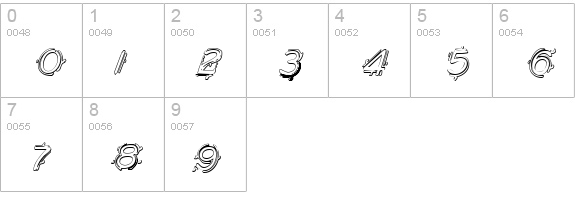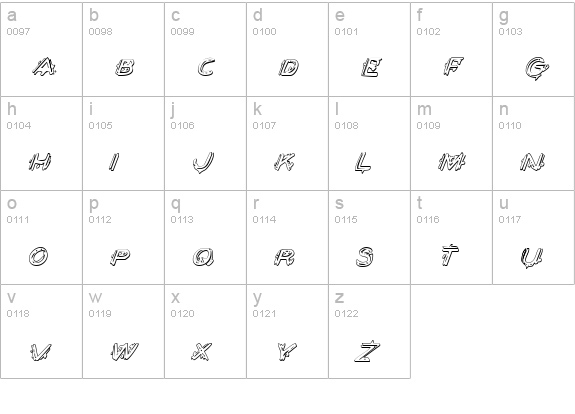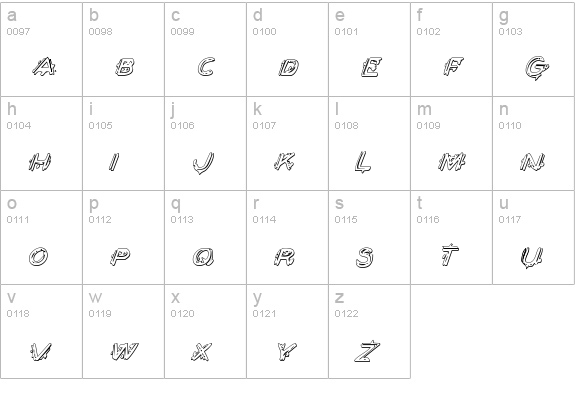
Berserker Shadow Italic is a distinctive, italic variant in the Berserker typeface family \xE2\x80\x94 well suited to design and typography projects.
Berserker Shadow Italic font is a bold and dynamic typeface that exudes power and intensity. With its sharp angles and distinctive shadow effect, this font is perfect for making a strong statement in your design projects. The italicized style adds a touch of elegance and sophistication to the overall look. What sets Berserker Shadow Italic font apart is not only its striking appearance but also the fact that it is available for free download at FontsMarket.com. This means that you can easily access this eye-catching font and use it in your creative endeavors without any cost involved. Whether you are working on a poster, logo, website, or any other design project, Berserker Shadow Italic font will help you make a bold impression. Don't miss out on the opportunity to enhance your designs with the powerful and stylish Berserker Shadow Italic font, now freely available for download at FontsMarket.com.